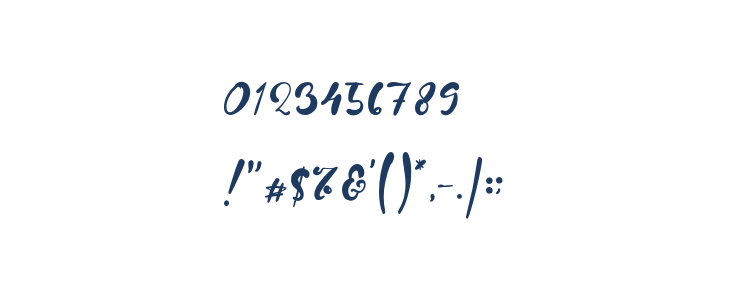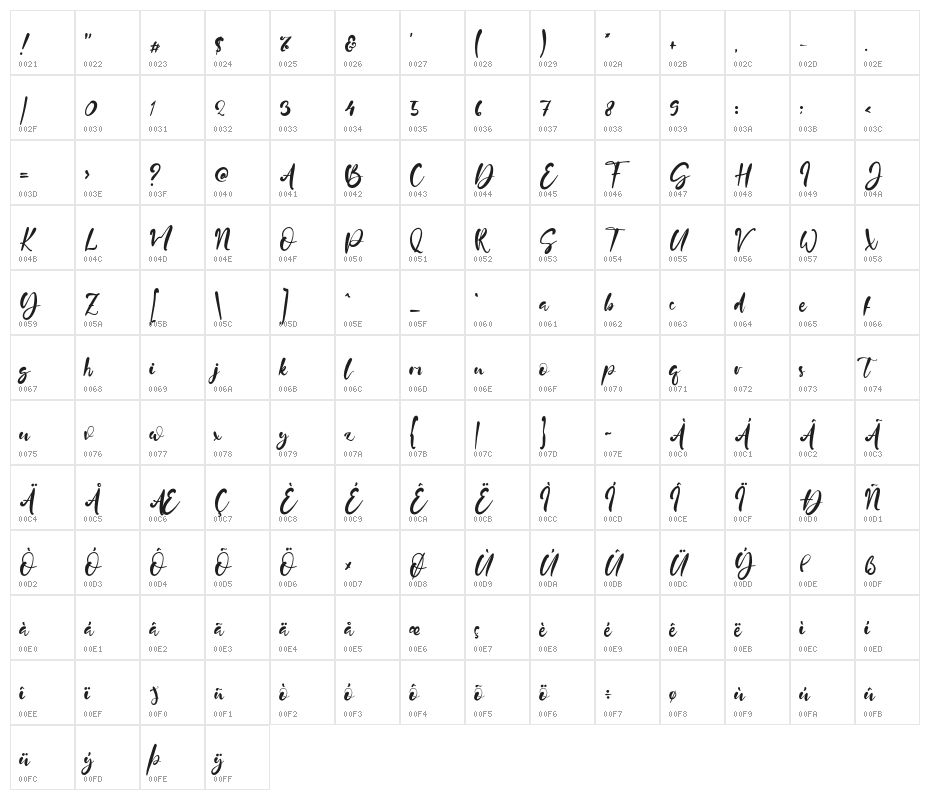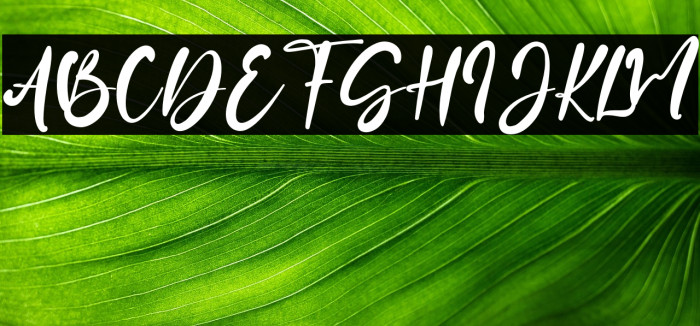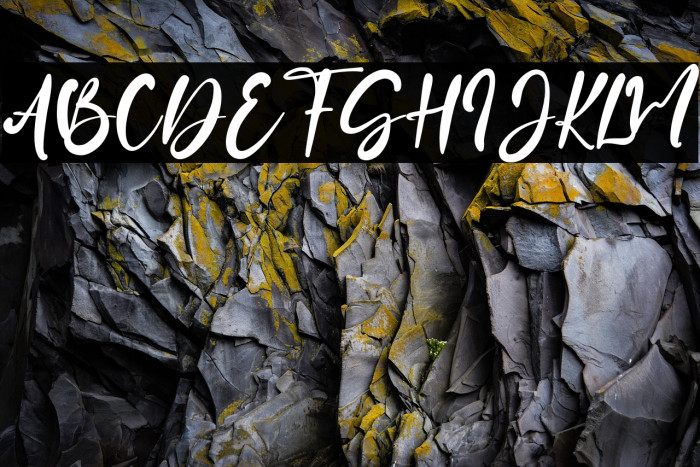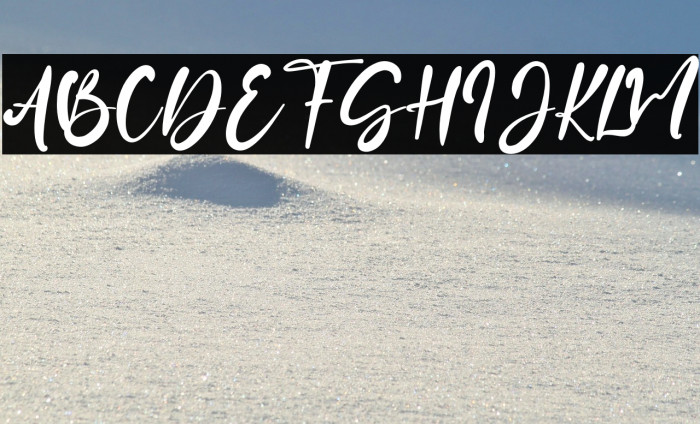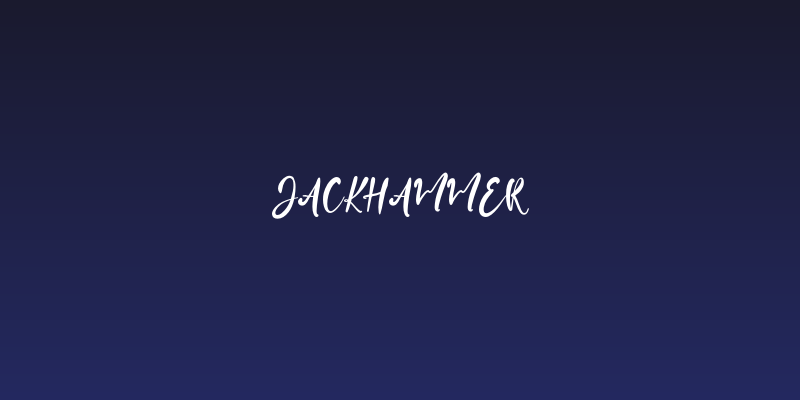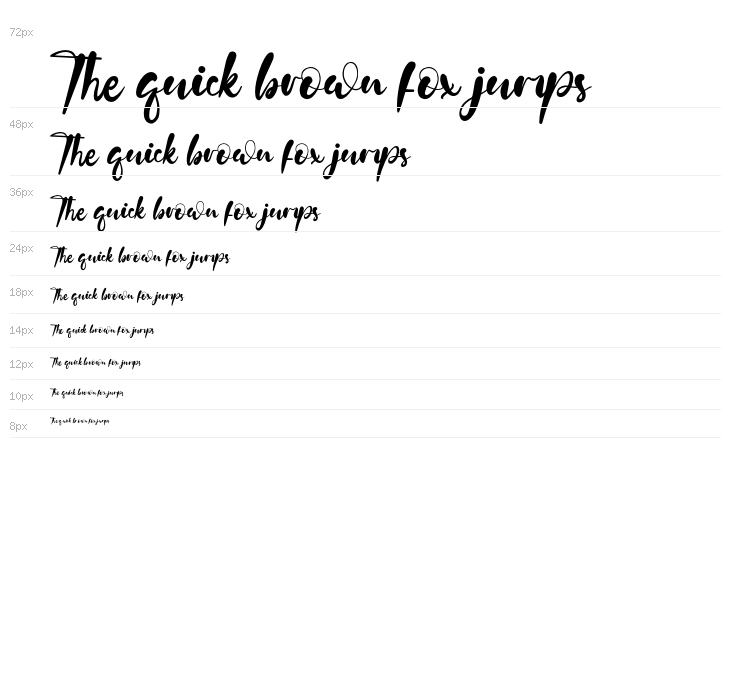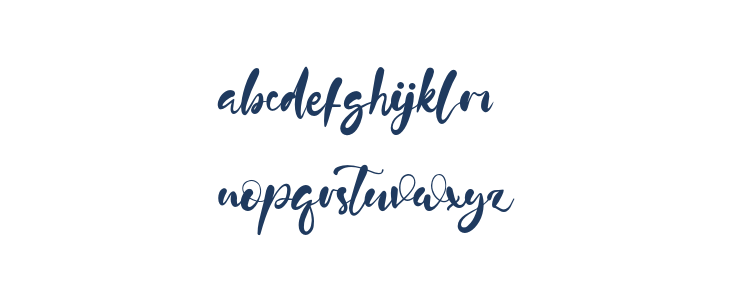
JackHammer Font
JackHammer Description
This font exudes a lively and dynamic energy, characterized by its bold and flowing script style. The uppercase letters are elegantly crafted with sweeping curves and a sense of movement, while the lowercase letters maintain a consistent fluidity that complements the overall design. The numerals are clear and legible, yet they retain the playful essence of the font. Special characters are thoughtfully integrated, enhancing the font's versatility. The strokes vary in thickness, adding a touch of sophistication and artistic flair. This font is perfect for projects that require a personal and expressive touch, such as invitations, branding, and creative headlines.
| Use Case | Headlines, Logos, Invitations |
| Proposed Projects | Ideal for invitations, branding, creative headlines, and expressive designs. |